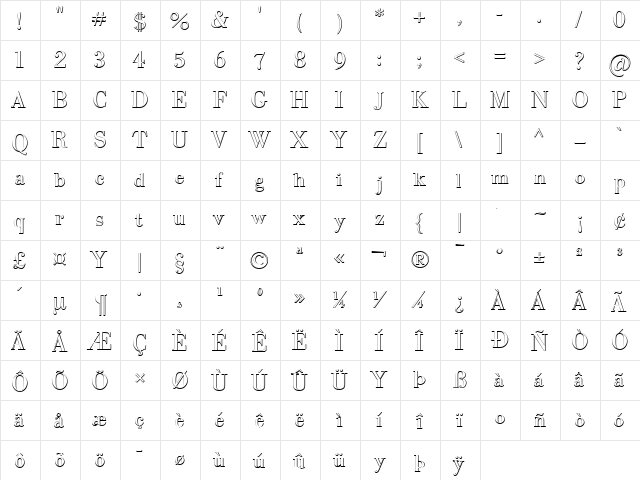
IntellectaBodoned Beveled Regular
| Foundry | Paulo and Iza W, by Intellecta Design |
| Designer | Paulo W |
Design Context for IntellectaBodoned Beveled Typeface
IntellectaBodoned Beveled offers clean, dependable letterforms without strong stylistic allegiance, making it a practical choice for designers who need flexibility.